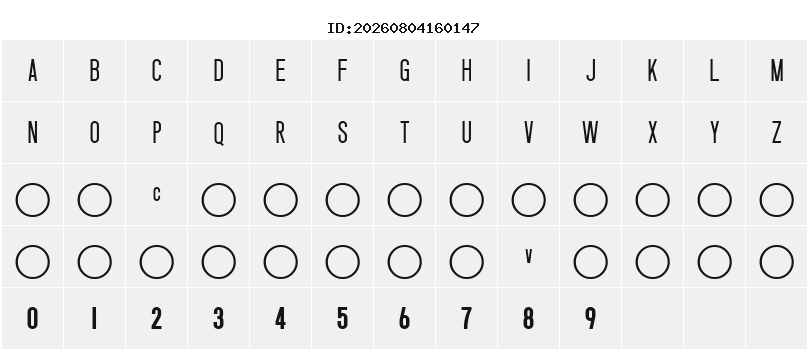
Nike Total 90 Preview
Nike Total 90.ttf is a modern, elegant sans-serif font designed for ultimate readability and visual harmony. Perfect for branding, headlines, web design, and print materials.